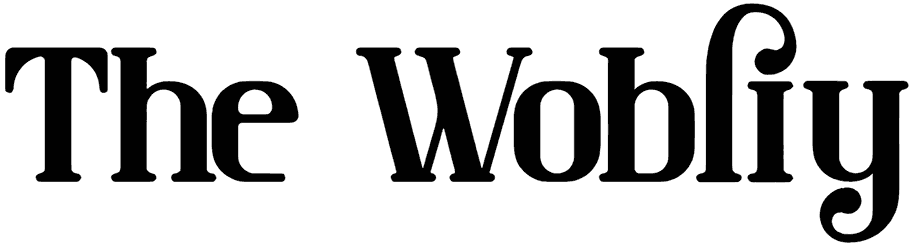
The Wobliy Font
The Wobliy is a bold serif font, ready for you to make a splash. It takes care of the design’s reliability while giving a formal impression which means you can use it to show a professional piece of art.
So go ahead and elevate your project to the next level. Product packaging, business cards, branding materials, party invitations, and book covers are the options that this font looks suitable for.